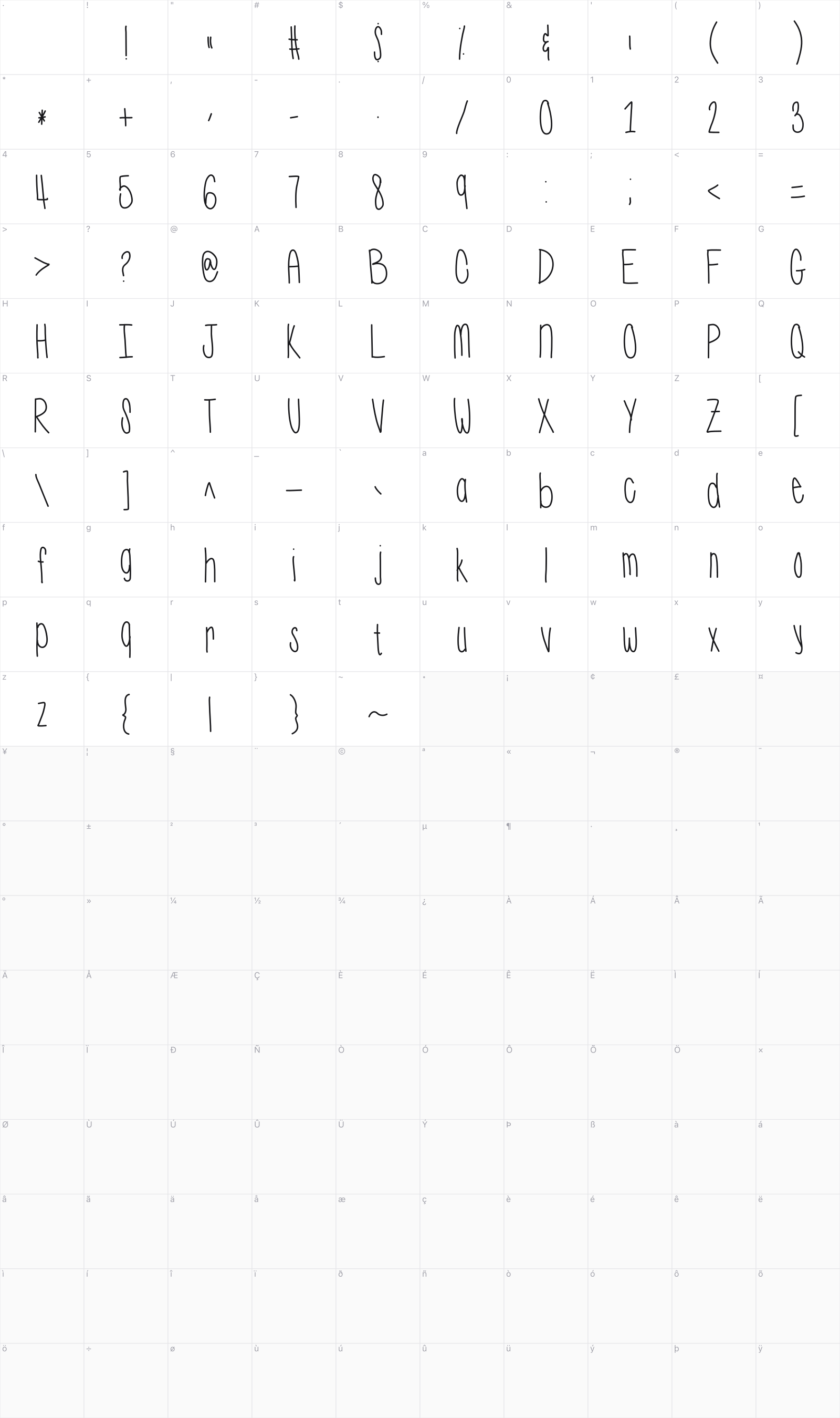
Wassup
Wassup is a thin, condensed handwritten face by Vanessa Bays with a quirky, slightly off-balance rhythm that keeps it feeling genuinely informal. The narrow letterforms are lightweight and breezy, like quick notes scrawled on a napkin, making it a good pick for casual branding, personal projects, or packaging that needs to feel approachable and unforced.